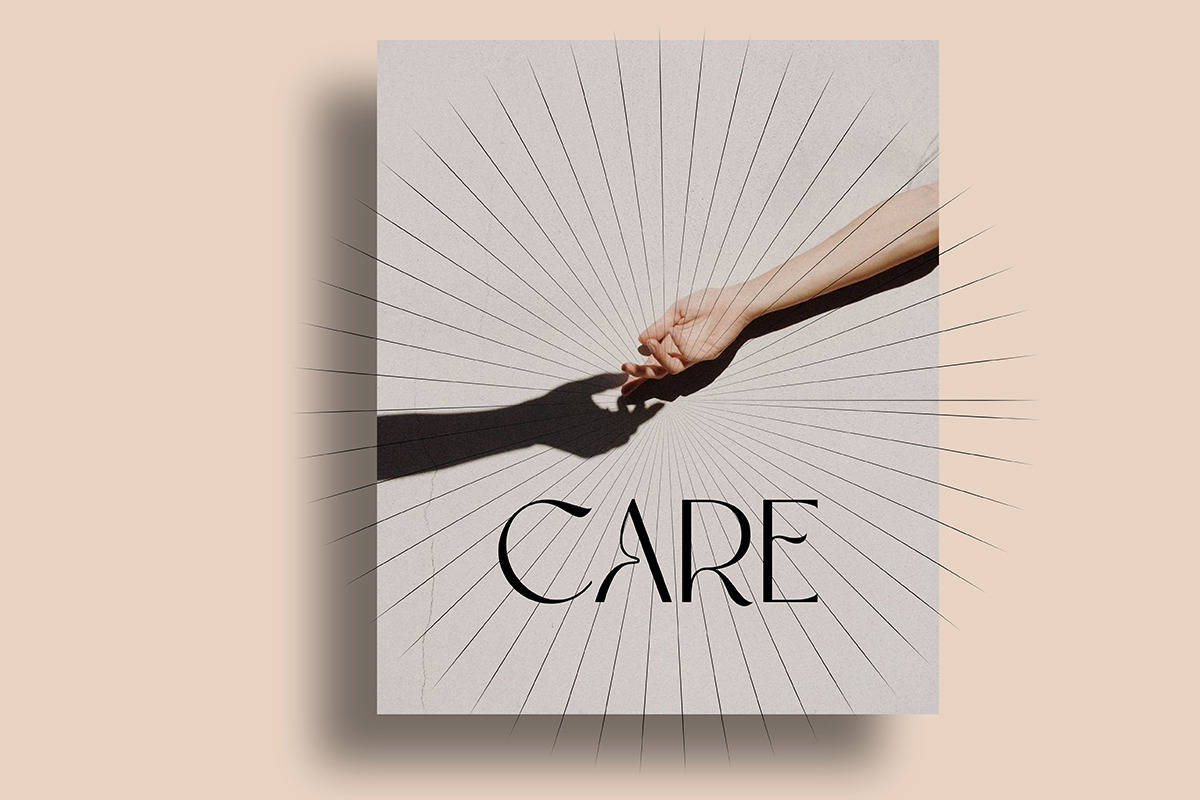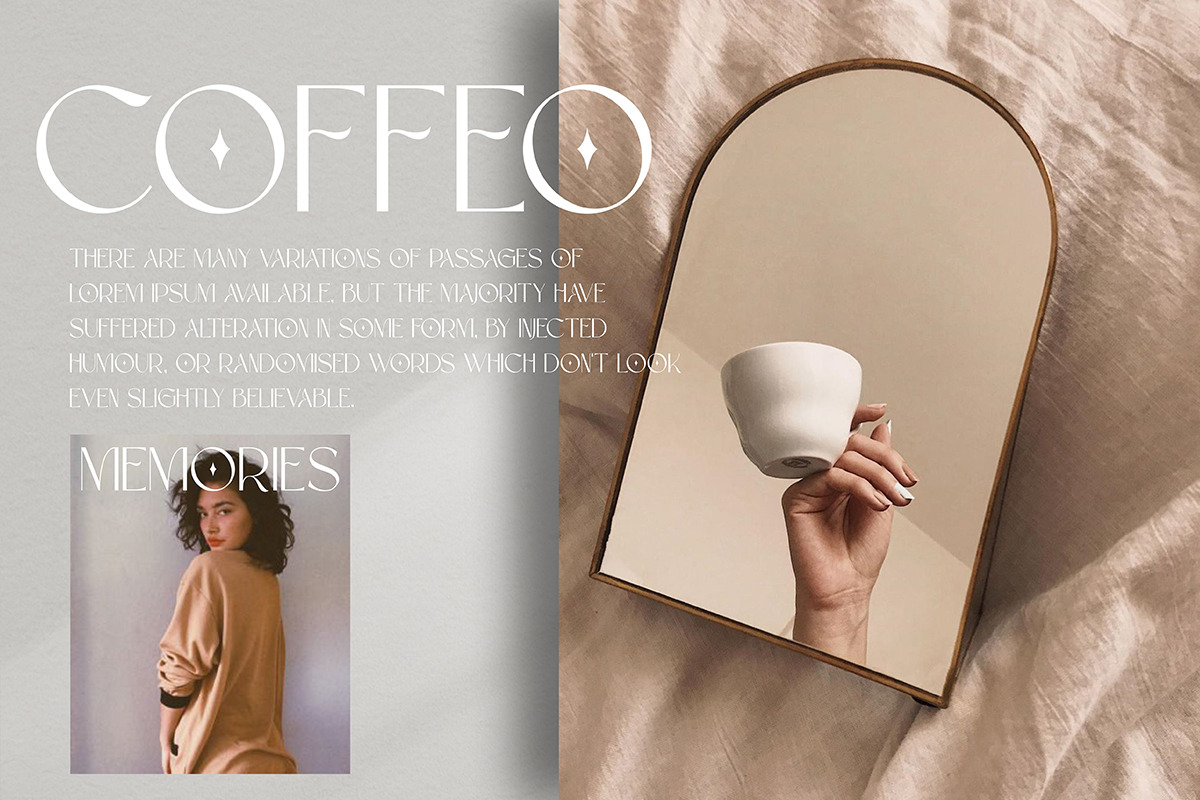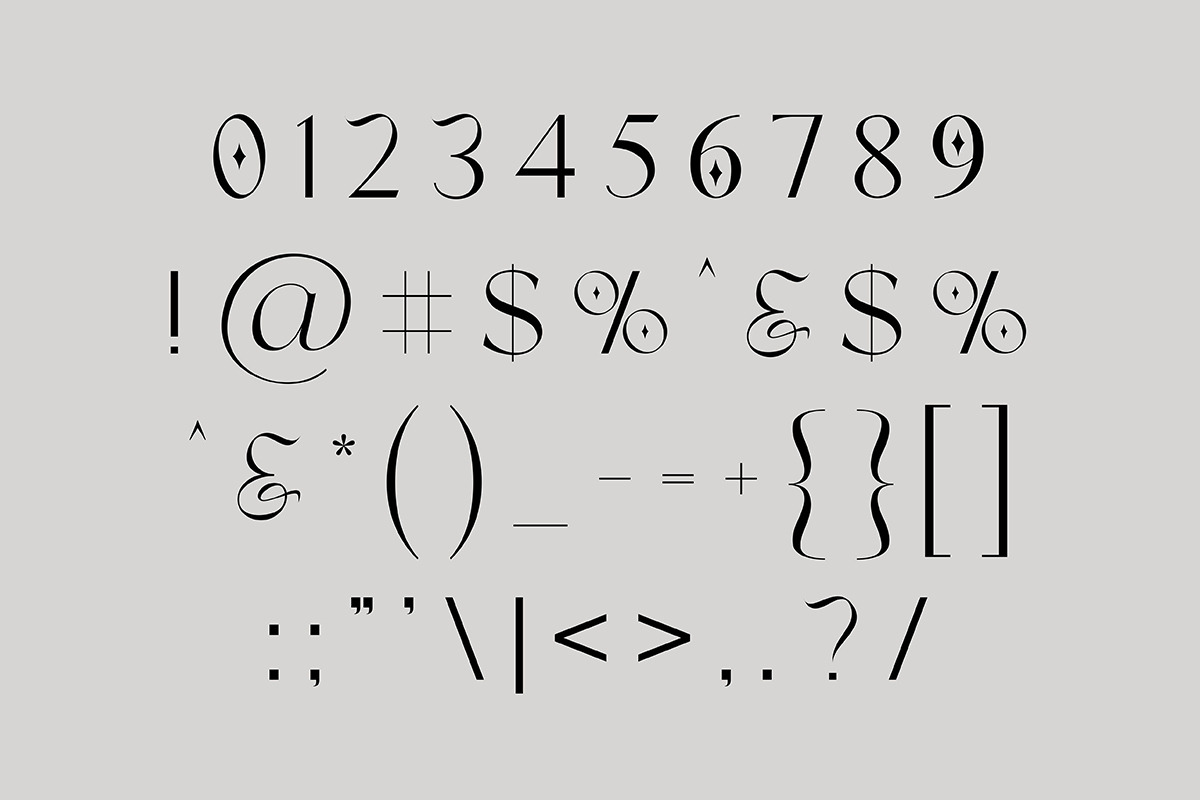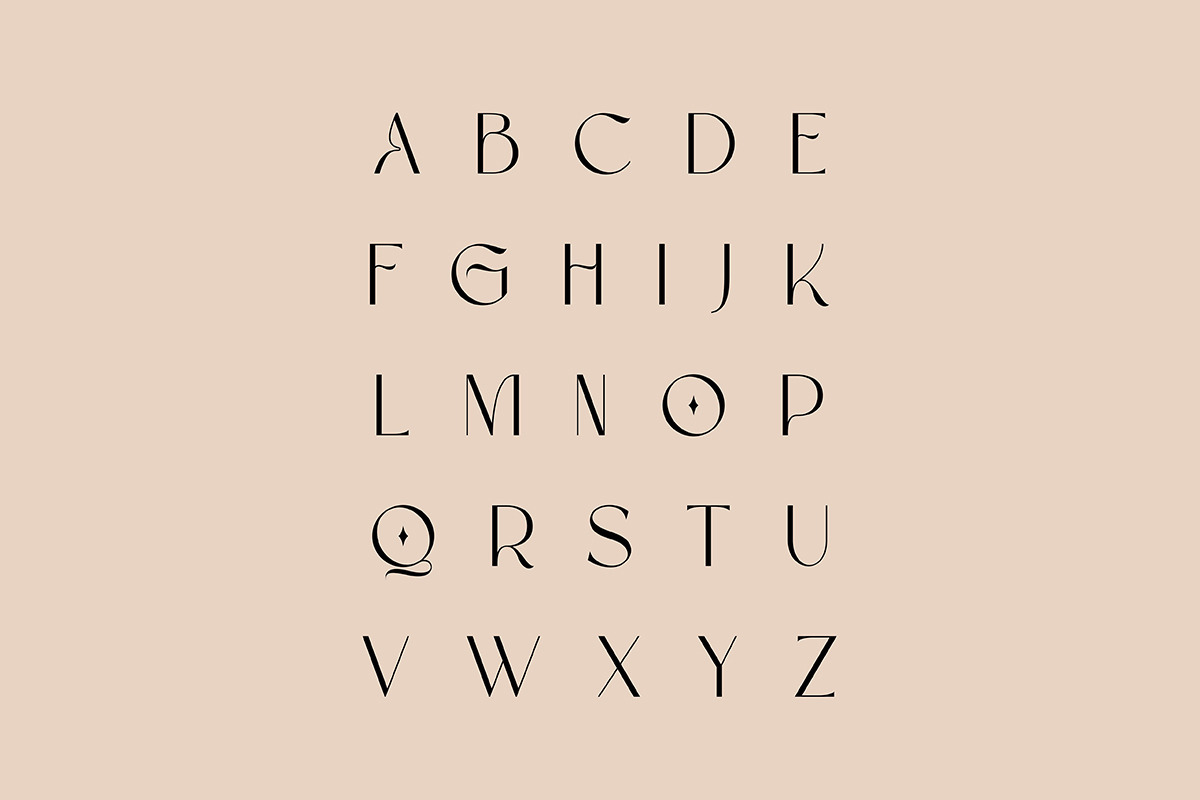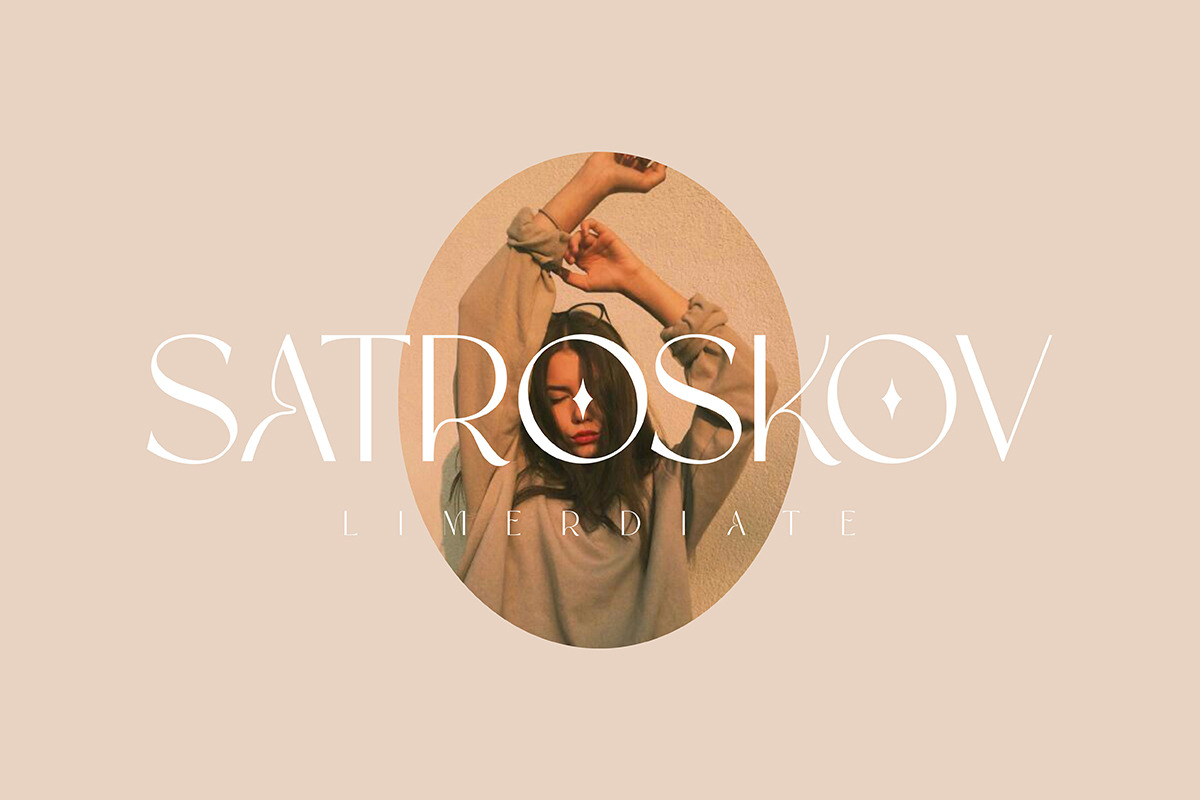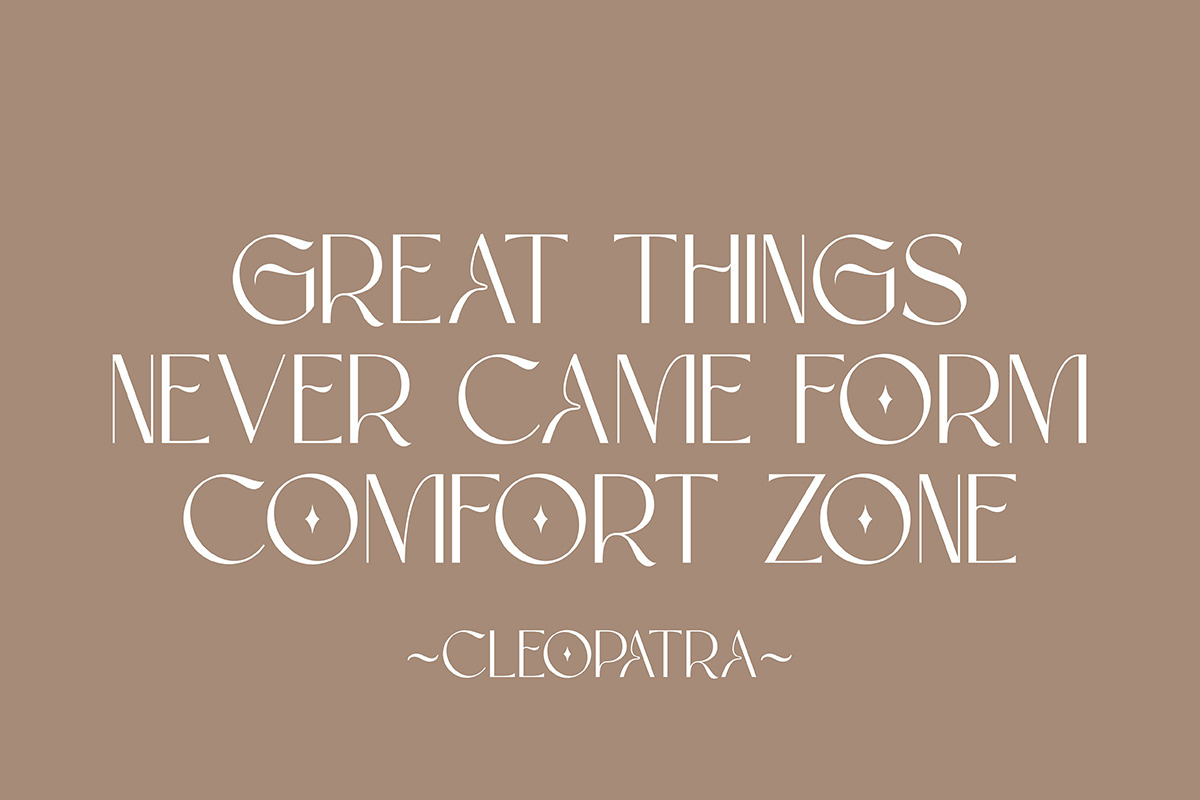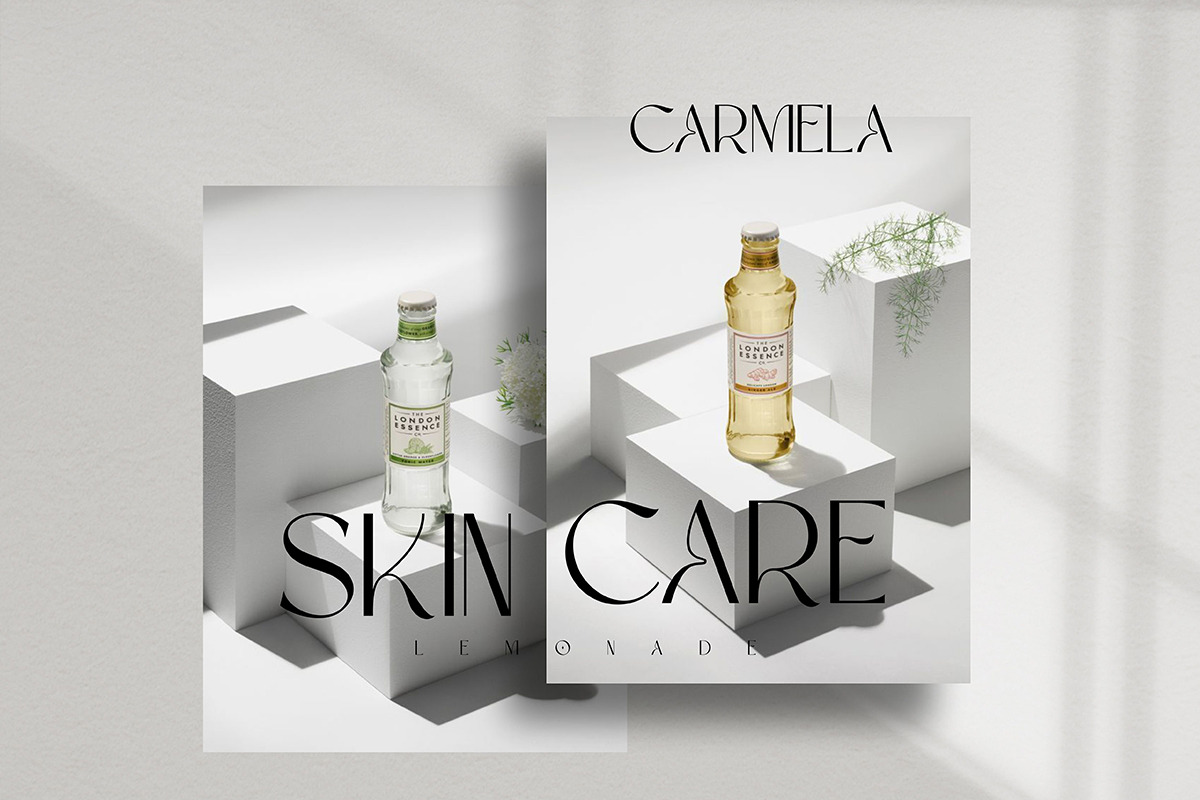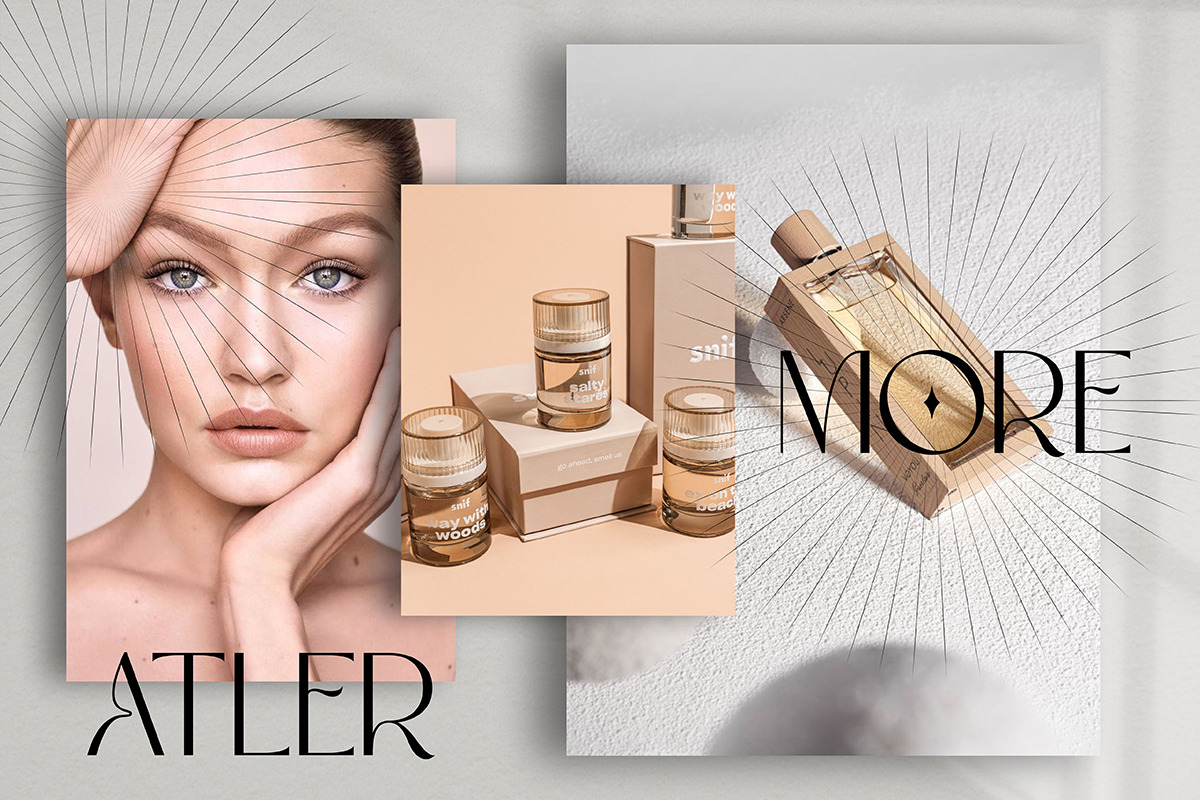
Cleopatra | Modern Sans Serif
Cleopatra fonts includes uppercase letters, numerals, a large range of punctuation. Serif font with modern stylish style. Created for poster, web design, branding, illustrations, badges and some other works.